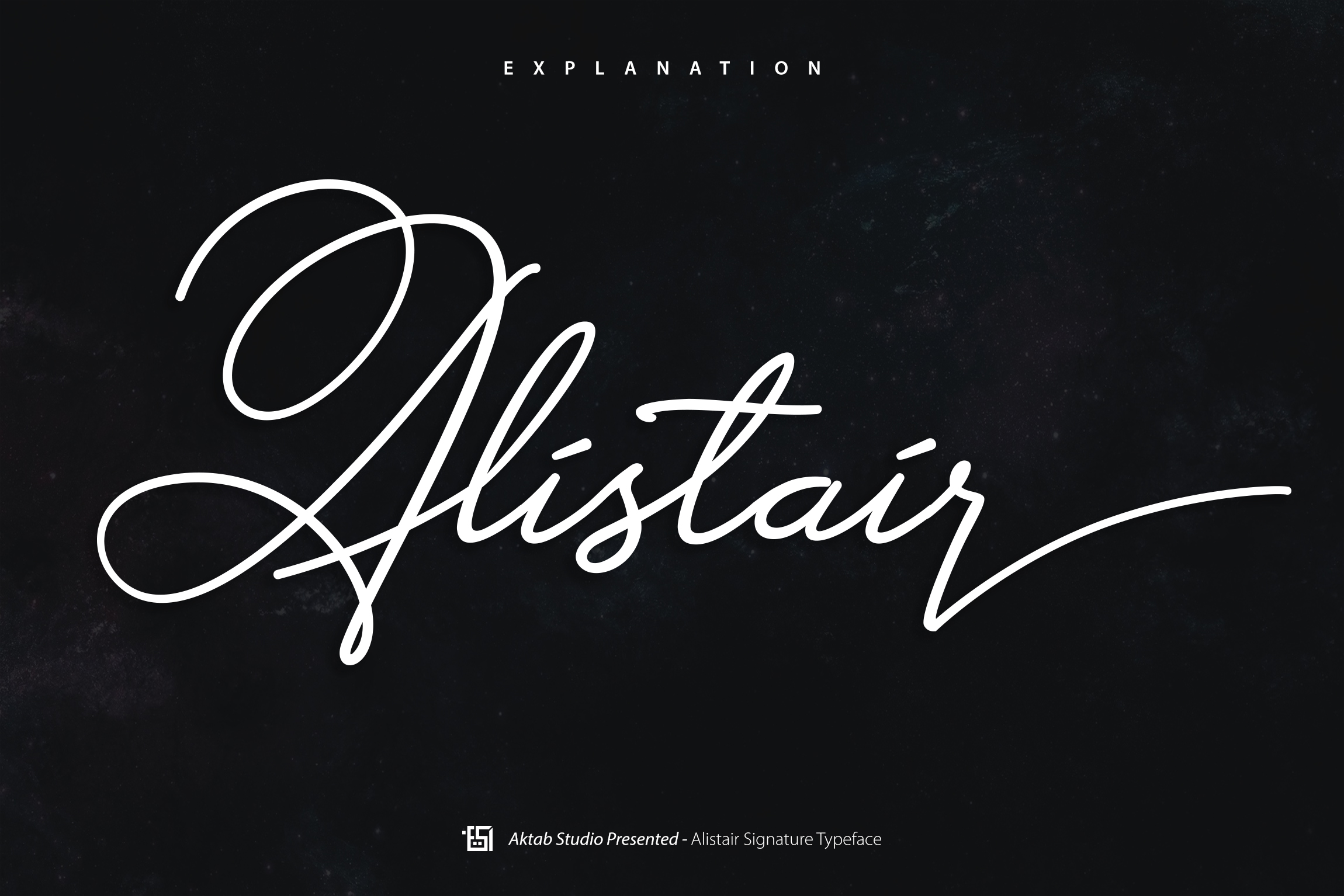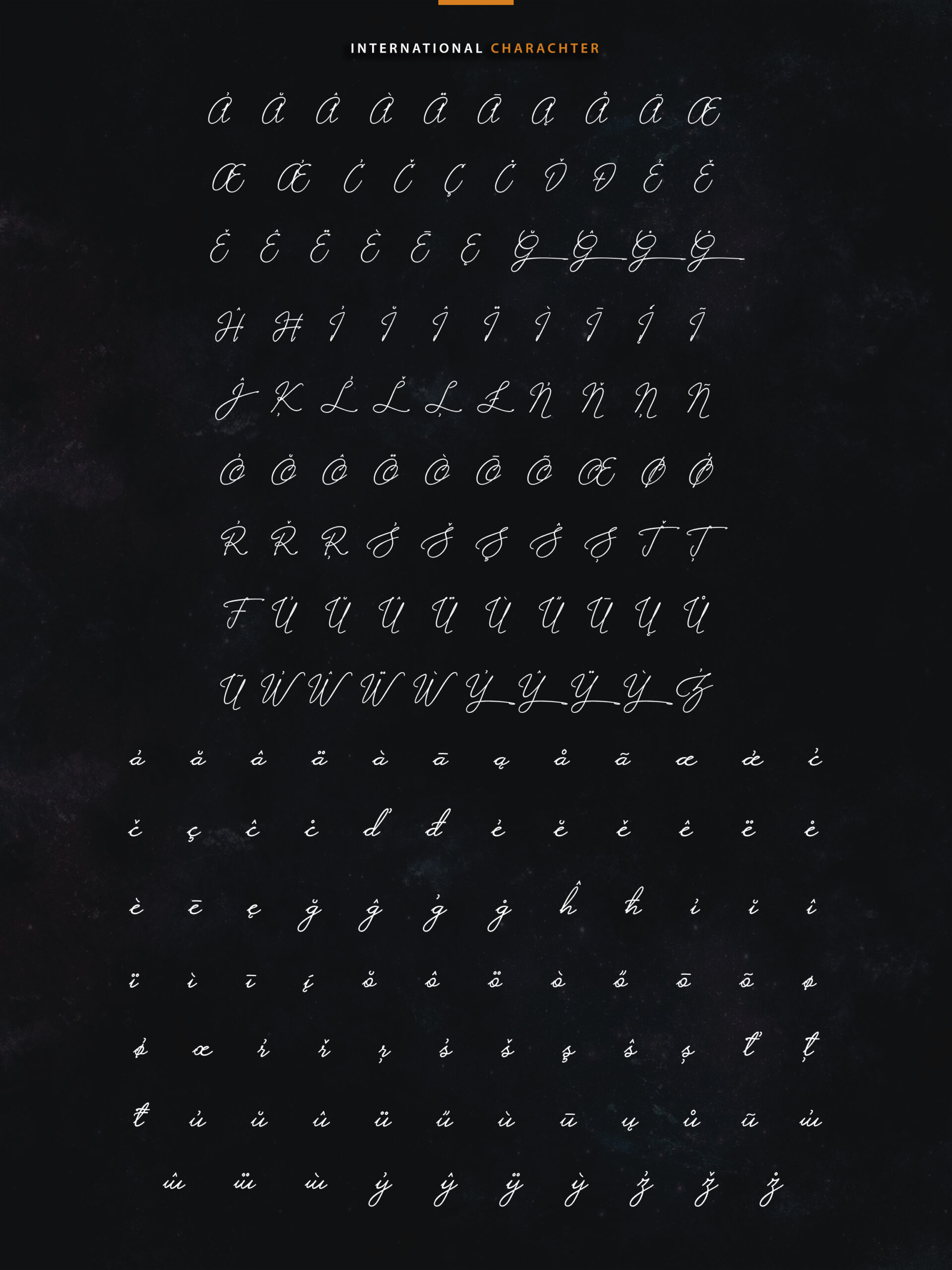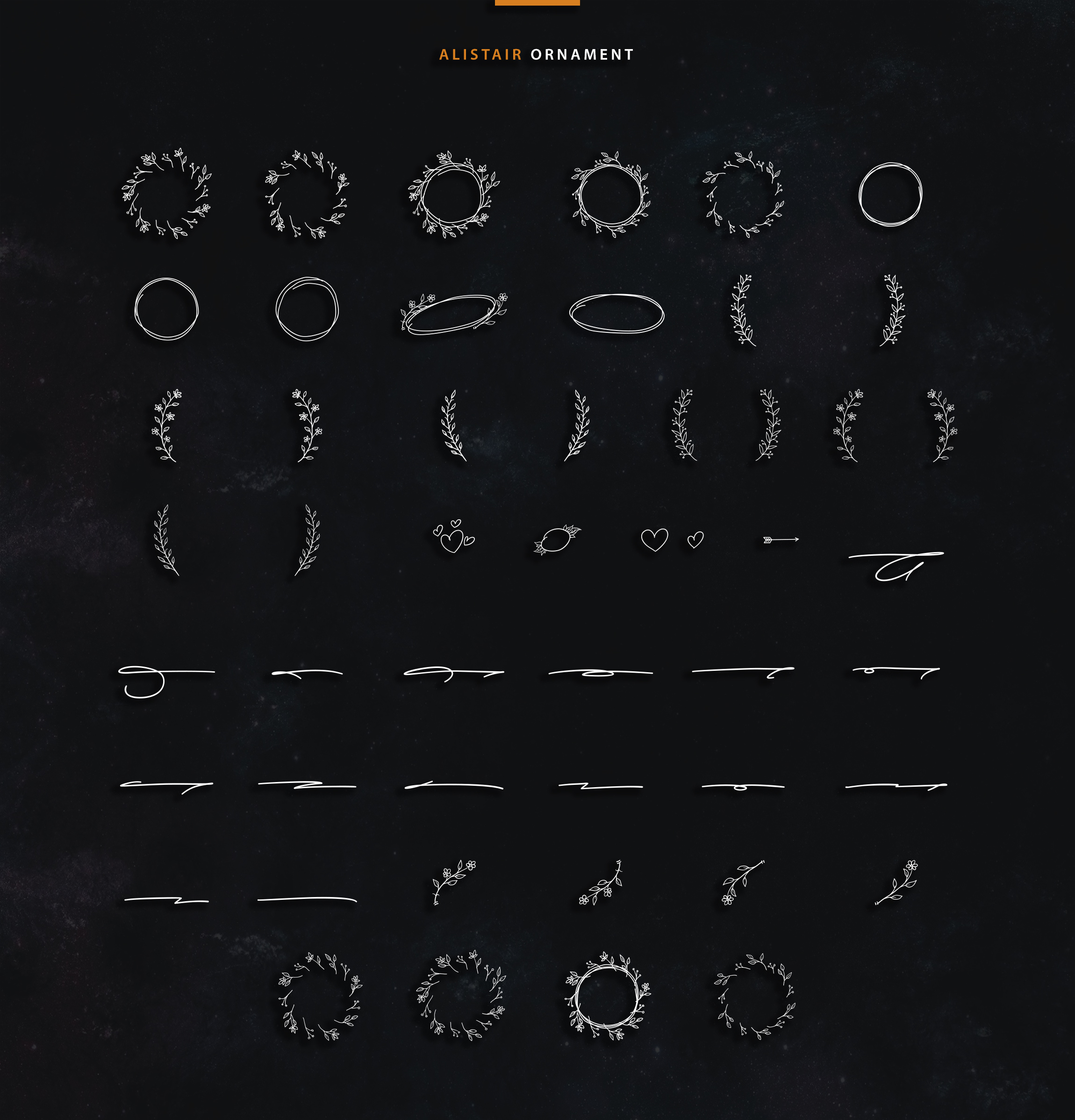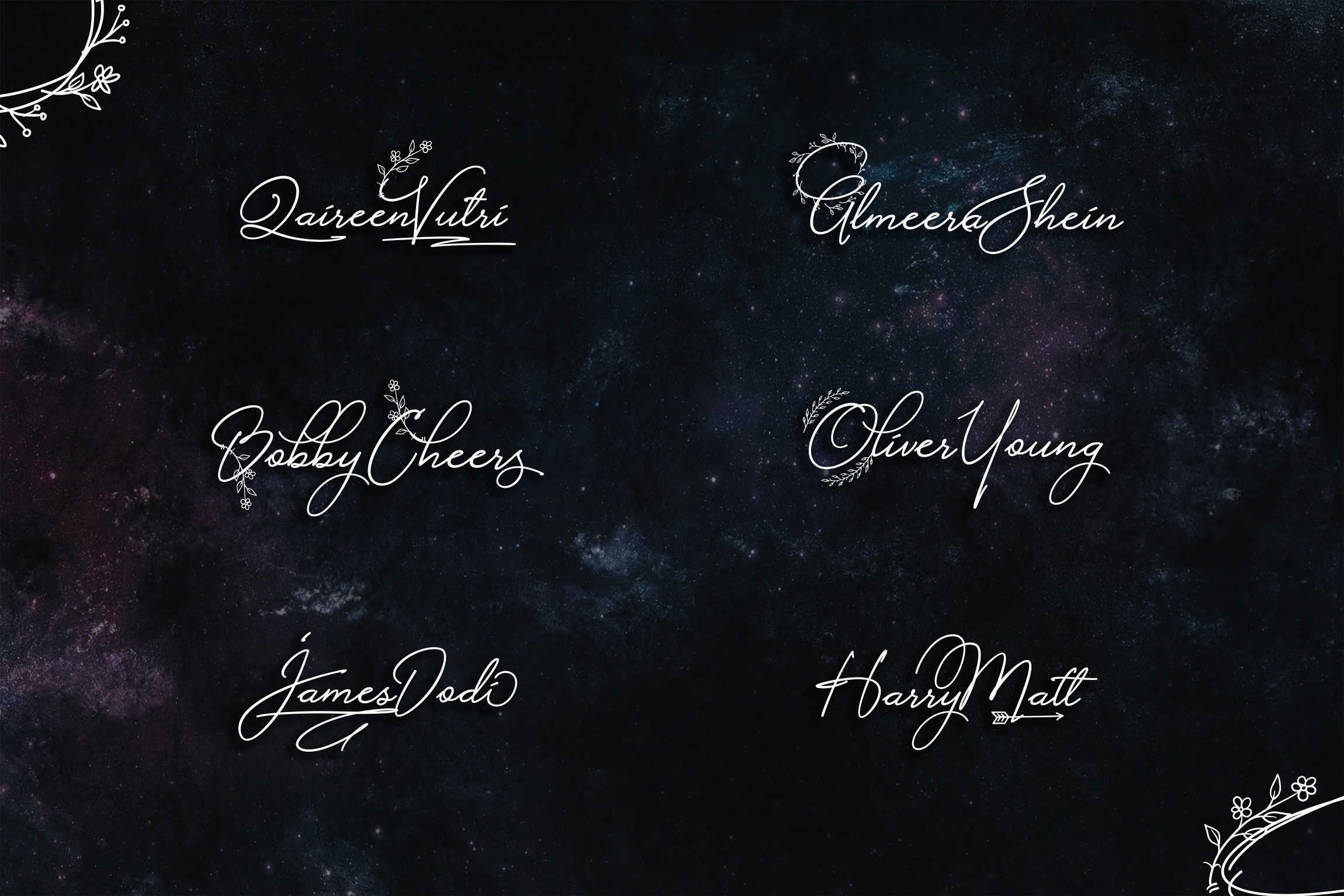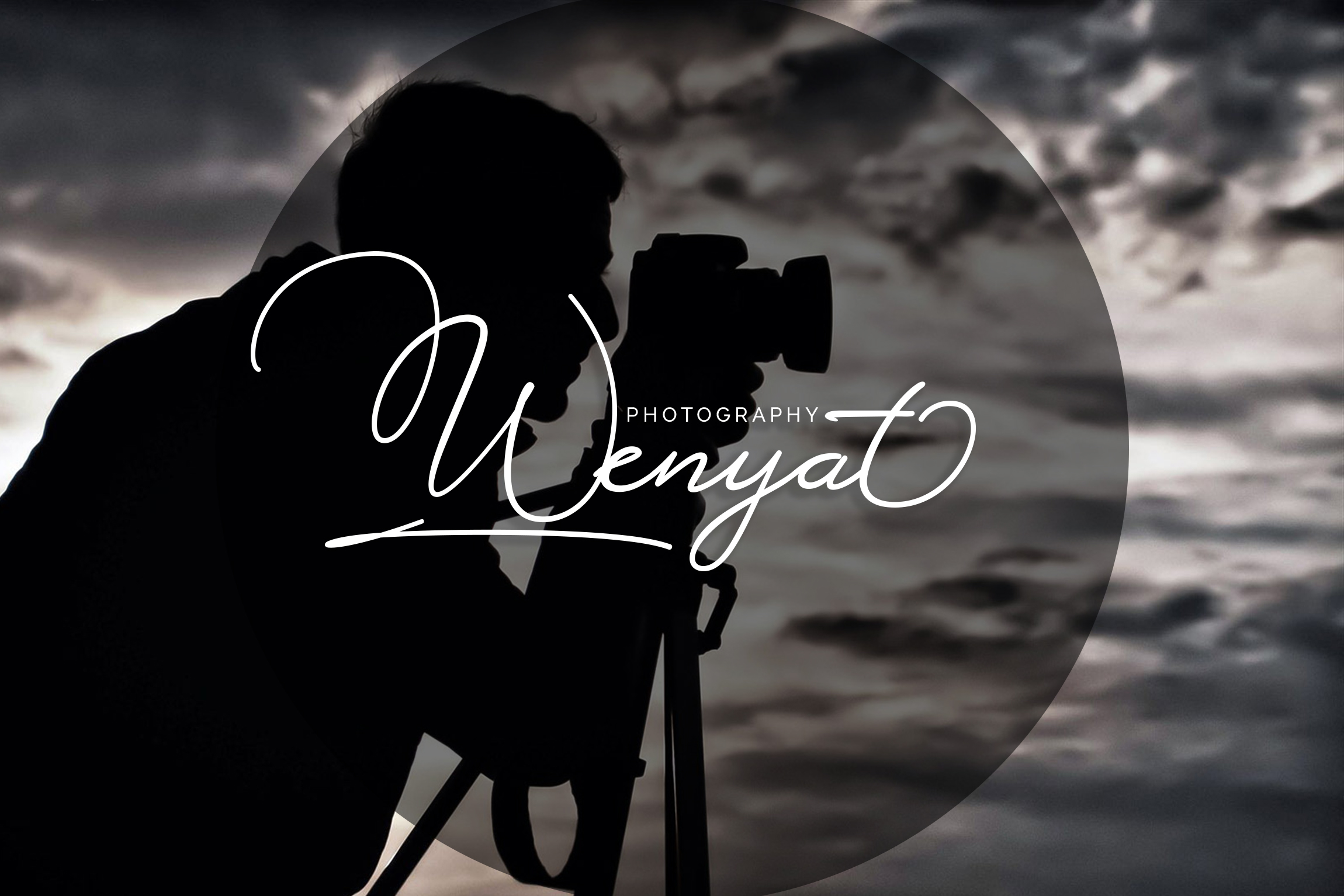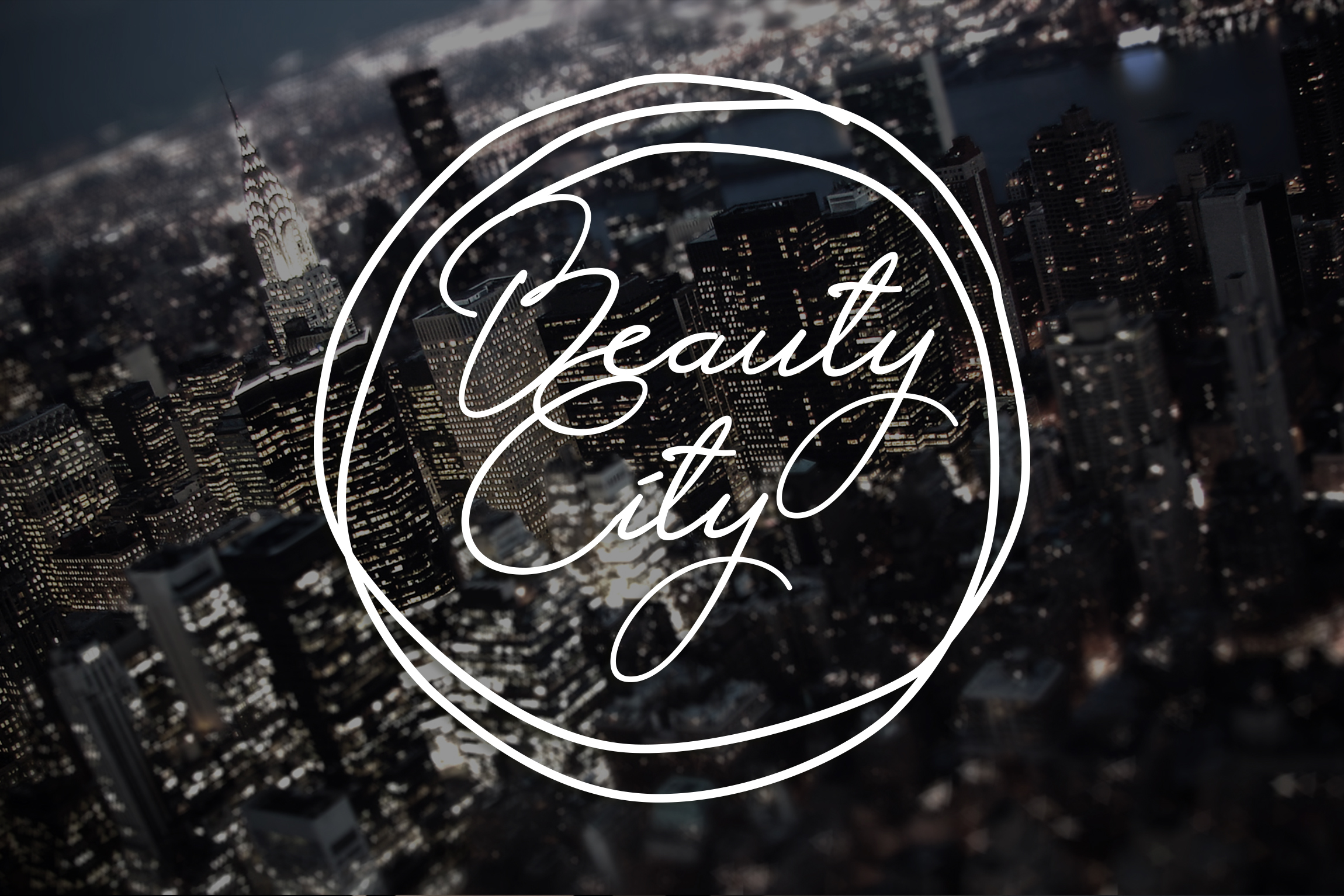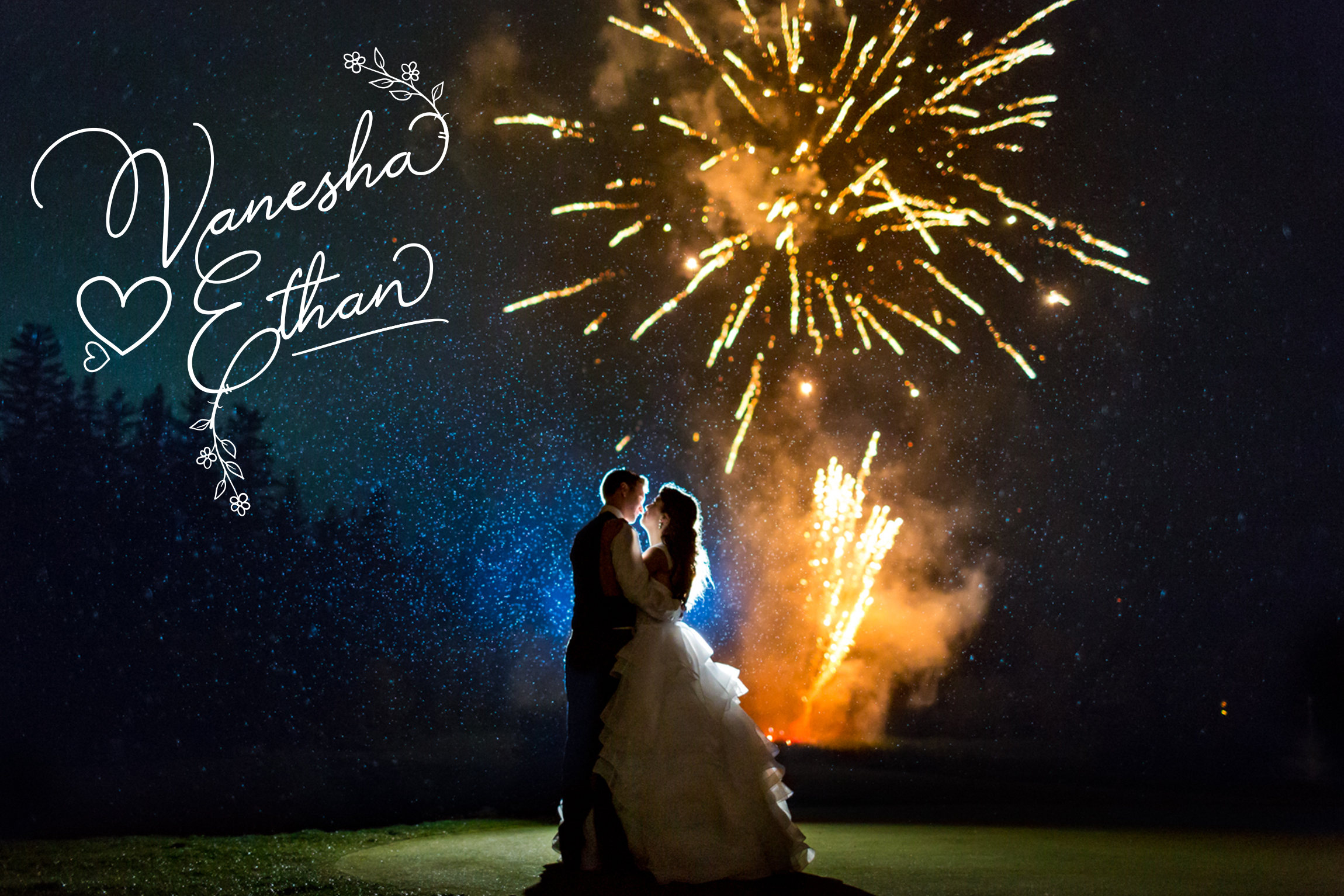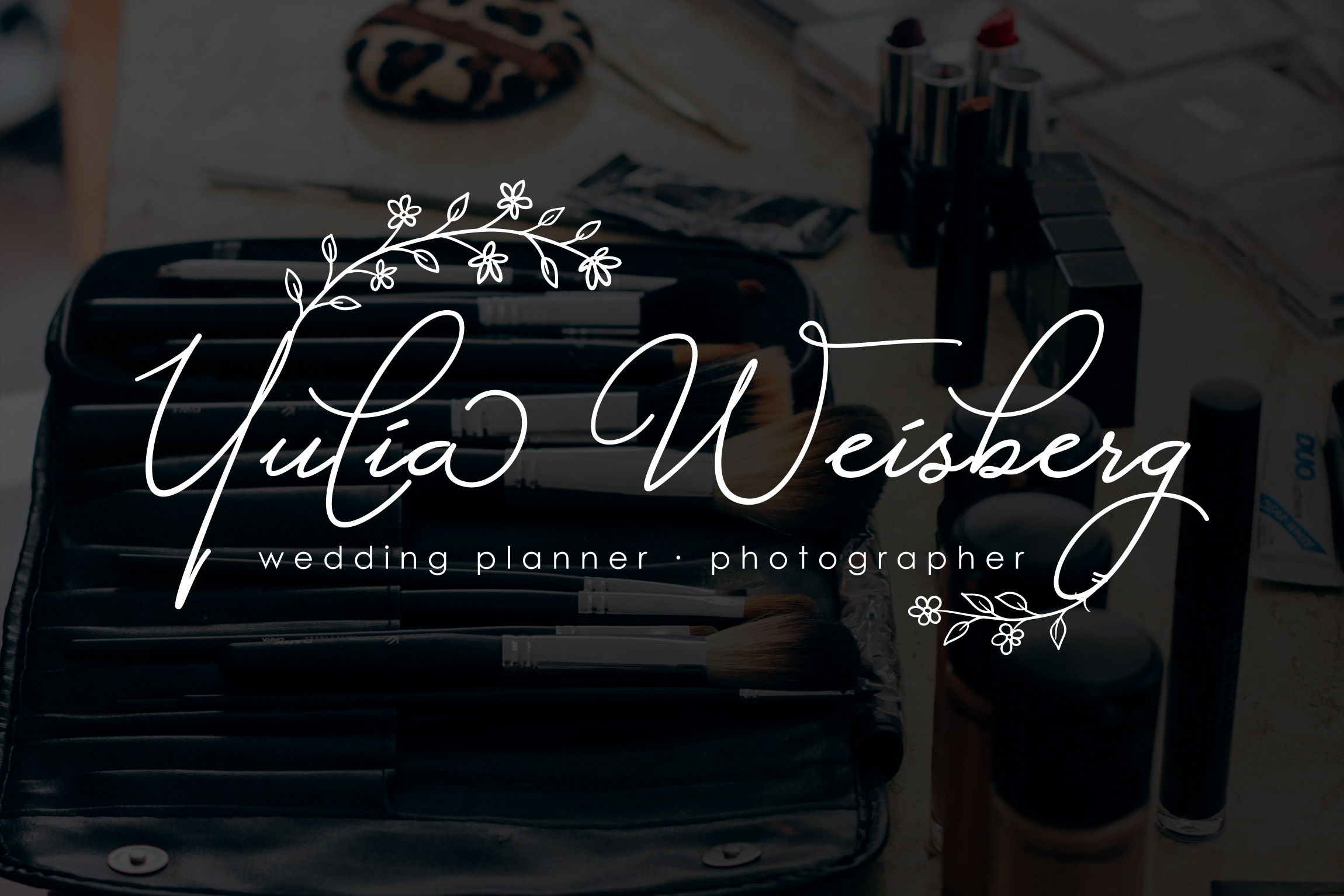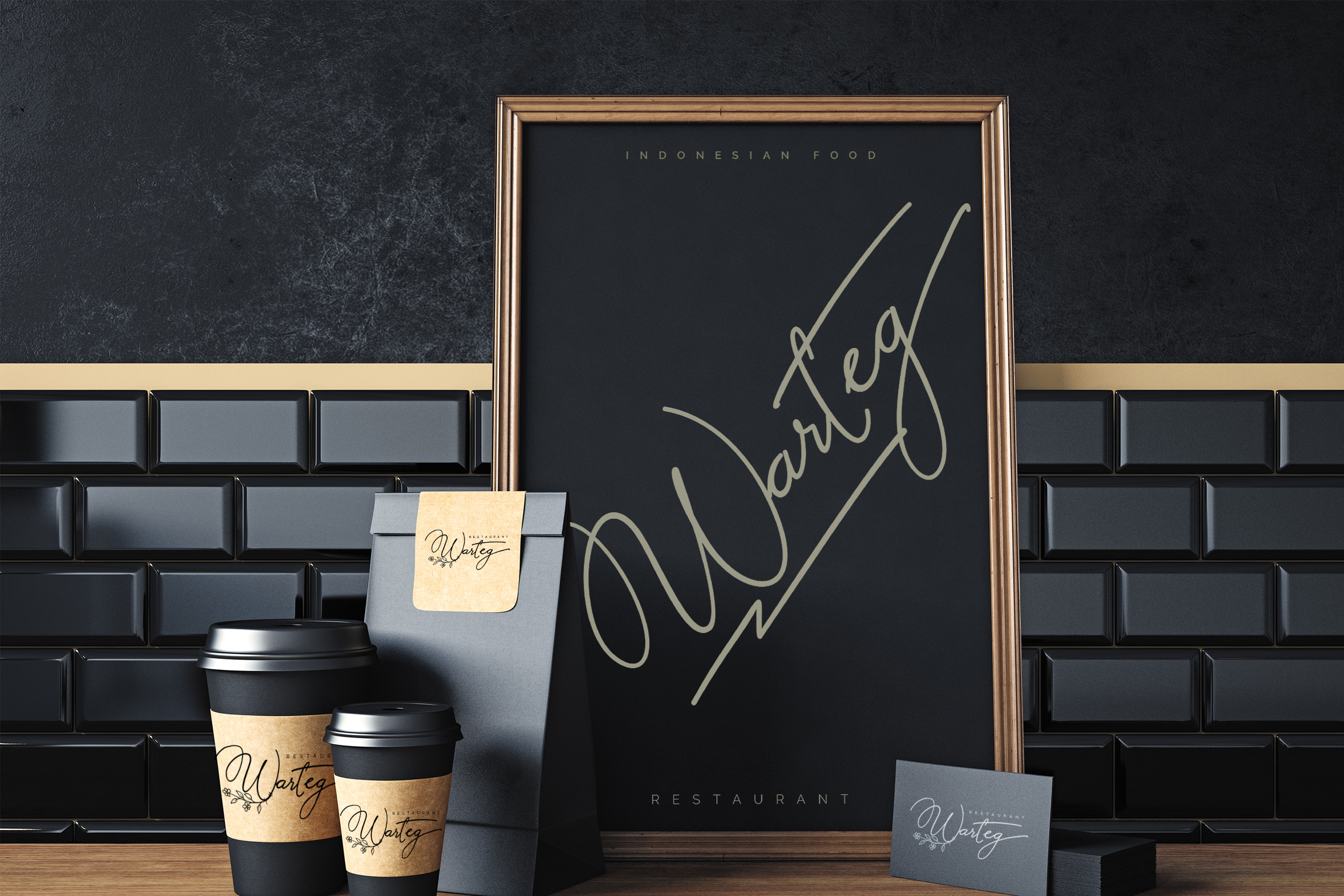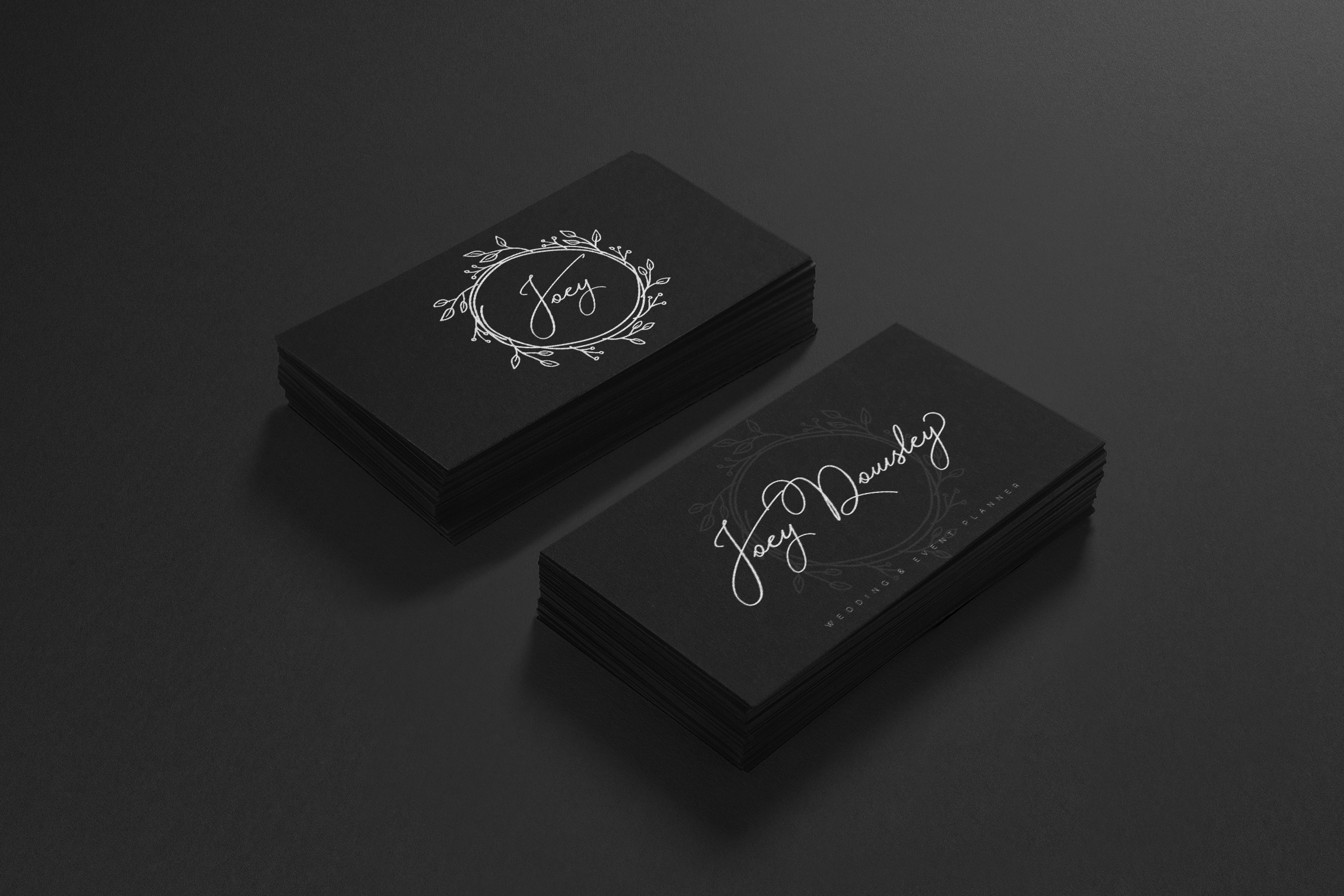
Alistair Font
About Alistair Font
Alistair is a modern monoline font created by hand.
It’s suitable for many occasions as it has a unique blend of professional creativity with a personal touch.